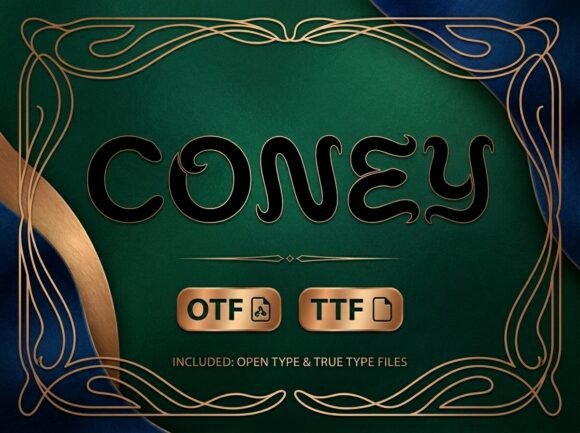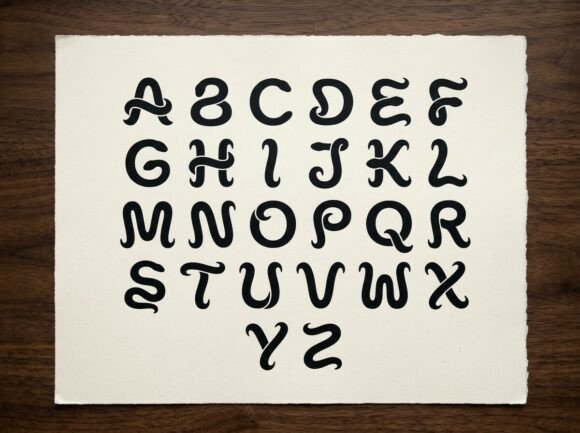
Discover the Elegance of Coney Font: Elevate Your Design with Sophistication
In the realm of typography, few fonts manage to strike a balance between modernity and artisanal charm. Coney Font, a unique decorative display script, achieves this delicate equilibrium with grace. By blending fluid motion with avant-garde structure, Coney offers a sophisticated aesthetic that can elevate any design project. Whether you’re a designer looking for a luxurious feel or a crafter seeking to add a touch of elegance, Coney is an exceptional choice.
The Distinctive Features of Coney Font
Coney Font is characterized by its high-contrast strokes and elegant, sweeping curves that terminate in sharp, artistic flourishes. This distinctive feature set gives Coney its unique rhythm and silhouette, making it stand out in the world of typography. The substantial visual weight of the font, combined with its airy, open apertures, creates a sense of modernity while retaining an artisanal feel.
Perfect for Premium Branding and Luxury Lifestyle Logos
For brands aiming to convey a sense of luxury and sophistication, Coney Font is an ideal choice. Its elegant and contemporary design makes it perfect for premium branding, luxury lifestyle logos, chic editorial headers, and bespoke event stationery. The font’s ability to deliver a sense of effortless grace and contemporary prestige to visual communication means that every word becomes a work of art.
Applications of Coney Font
The versatility of Coney Font makes it suitable for a wide range of applications. Here are some of the areas where Coney can make a significant impact:
- Branding: Use Coney to create luxurious and memorable brand identities that stand out in the market.
- Logos: Perfect for luxury lifestyle brands, Coney’s unique design ensures that logos are not only elegant but also highly distinctive.
- Editorial Design: Add a touch of sophistication to editorial content with Coney’s chic and modern aesthetic.
- Event Stationery: Elevate event branding with bespoke stationery that exudes elegance and refinement.
Why Choose Coney Font?
Choosing Coney Font for your design project comes with numerous benefits. Here are some reasons why Coney stands out:
- Unique Aesthetic: Coney’s blend of fluid motion and avant-garde structure offers a fresh and distinctive look.
- Versatility: Suitable for a wide range of design applications, from branding to editorial design.
- Elegance: Coney’s high-contrast strokes and elegant curves bring a level of sophistication to any design.
- Legibility: Despite its decorative nature, Coney maintains a high level of legibility, making it practical for use in various contexts.
Tips for Using Coney Font Effectively
To maximize the impact of Coney Font in your designs, consider the following tips:
- Pair with Simpler Fonts: When using Coney for headings, pair it with simpler fonts for body text to create visual contrast.
- Experiment with Sizes: Play with different sizes to emphasize certain words or phrases, highlighting the font’s elegant details.
- Consider Color: Choose colors that complement the elegance of Coney, such as neutral tones or rich jewel tones.
- Pay Attention to Spacing: Ensure adequate spacing between letters and lines to maintain the font’s airy and open feel.
Coney Font offers a unique blend of modernity and elegance, making it an exceptional choice for designers and crafters looking to elevate their projects. With its distinctive features, versatility, and the ability to convey a sense of luxury and sophistication, Coney is poised to make a significant impact in the world of design. Whether you’re working on premium branding, luxury lifestyle logos, or bespoke event stationery, Coney Font is sure to deliver a sense of effortless grace and contemporary prestige, turning every word into a work of art.